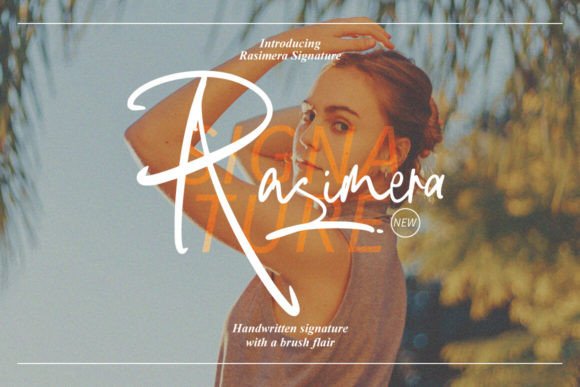
Unleash your creativity and leave a lasting impression with Rasimera Signature, a captivating script font that dances across your designs with grace and elegance. Immerse yourself in the world of handmade signatures, decorative characters, and a fluid baseline that brings life to your every word.
Imagine the possibilities as you adorn your greeting cards, branding materials, business cards, quotes, and posters with the charm of Rasimera Signature. Its versatile nature makes it the perfect companion for any project, adding a touch of sophistication and individuality that sets your designs apart.
With over 200 glyphs at your disposal, explore the depths of creativity as you unlock a treasure trove of alternative characters. Swash, Stylistic Sets, Stylistic Alternates, and Ligature features await your command, allowing you to craft designs that captivate and inspire.
Step into the world of Rasimera Signature today and embark on a creative journey like no other. Let your imagination soar as you transform your designs into masterpieces, leaving an indelible mark on the hearts and minds of your audience.